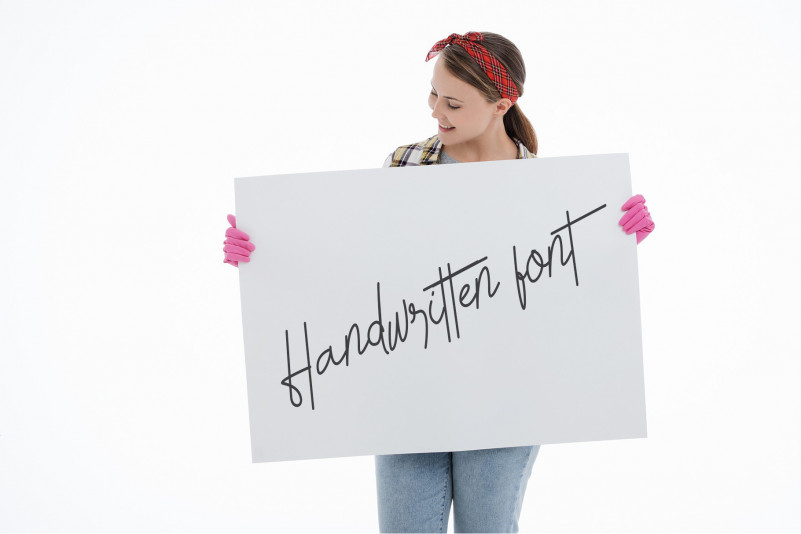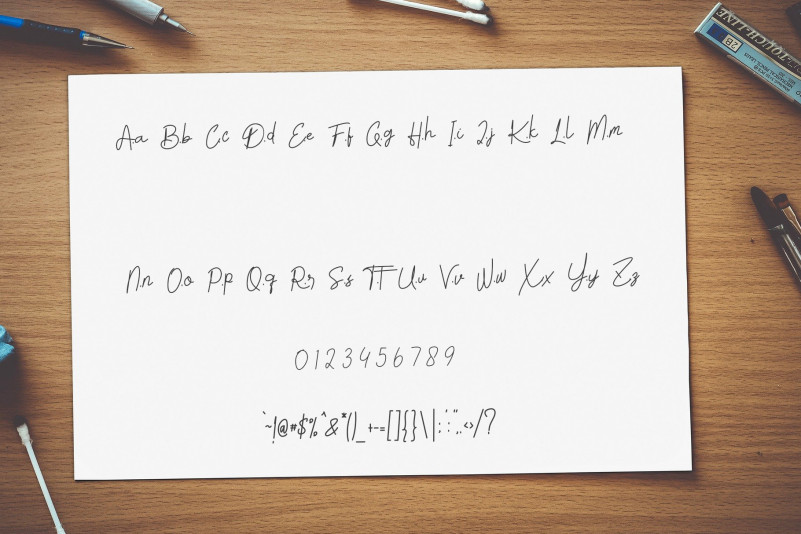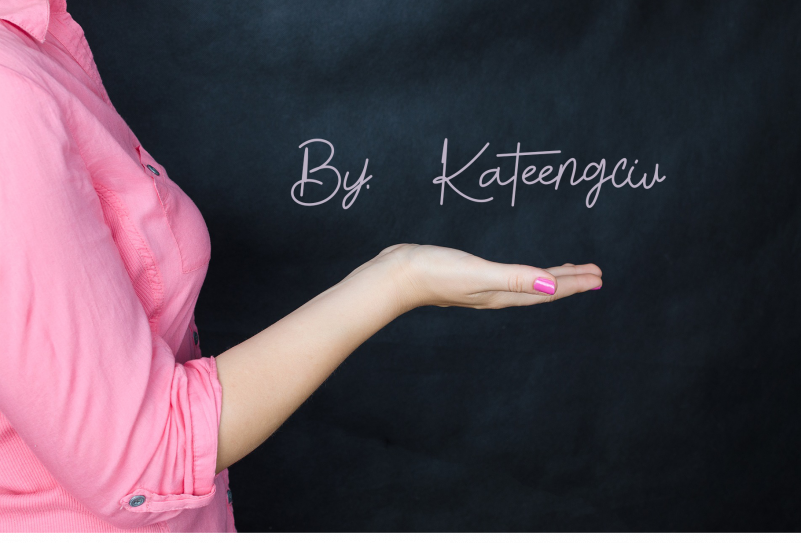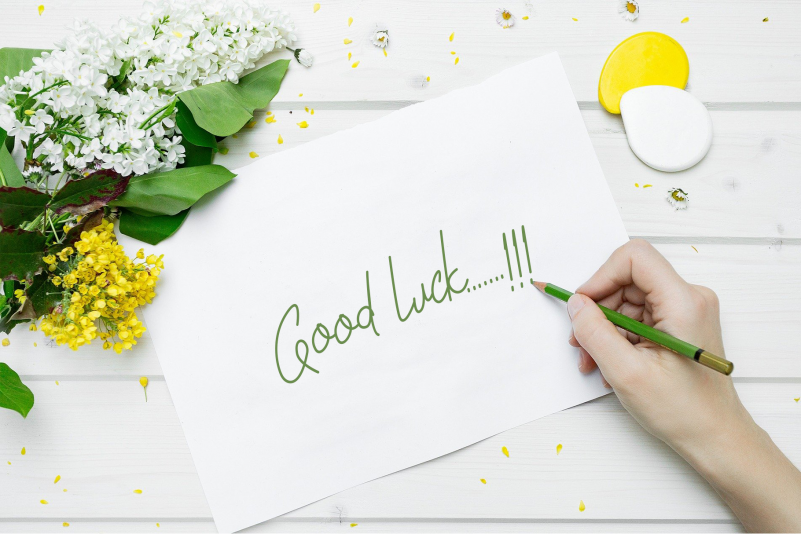
The Extreme Font
The Extreme Handwritten Font
This is a delicate and elegant handwritten font. Its distinct and well rounded letters make this font a masterpiece. Simple but with a strong visual effect, this font will instantly make your creation more appealing than any others.